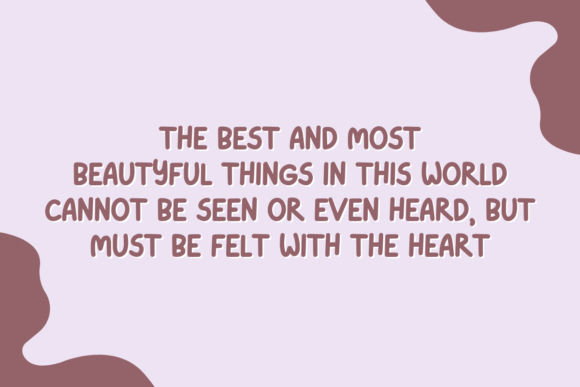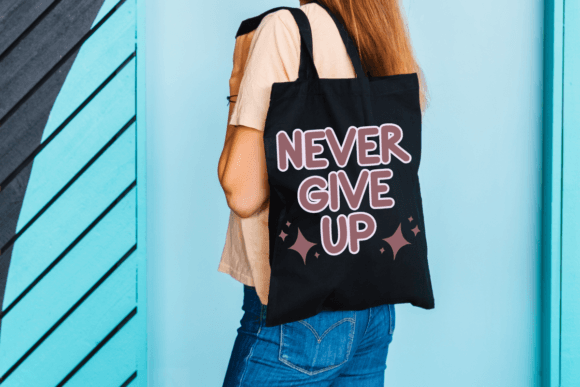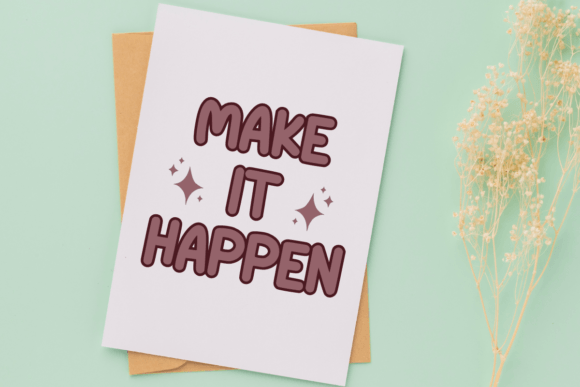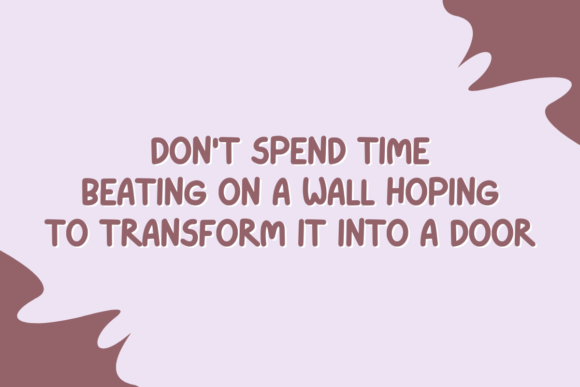
Introducing Hard Working Font: The Perfect Companion for Your Creative Projects
Are you a designer, crafter, or DIY enthusiast looking for a font that can help you add a personal touch to your projects? Look no further than Hard Working Font, a cute sans serif font that’s perfect for a wide range of creative applications. In this article, we’ll take a closer look at the features and benefits of Hard Working Font, and explore how it can help you take your creative projects to the next level.
What is Hard Working Font?
Hard Working Font is a modern sans serif font that’s designed to be both clean and adorable. Its simple, yet charming design makes it an excellent choice for a variety of projects, from stickers and notes to planners, SVG quotes, and more. The font’s versatility and legibility make it easy to read and understand, making it perfect for both digital and print applications.
Key Features of Hard Working Font
- Cute and Modern Design: Hard Working Font boasts a fresh and adorable design that’s sure to capture the attention of your audience.
- Sans Serif Style: The font’s sans serif style gives it a clean and minimalist look that’s perfect for modern designs.
- Highly Legible: The font is designed to be easy to read, making it perfect for body text, headings, and titles.
- Versatile: Hard Working Font can be used for a wide range of projects, from digital designs to print materials.
Creative Projects You Can Make with Hard Working Font
Hard Working Font is an incredibly versatile font that can be used for a wide range of creative projects. Here are some ideas to get you started:
- Stickers: Add a personal touch to your stickers with Hard Working Font’s cute and modern design.
- Notes and Planners: Use the font to create adorable notes and planners that are both functional and visually appealing.
- SVG Quotes: Create stunning SVG quotes with Hard Working Font that can be used for a variety of projects, from wall art to social media graphics.
- T-Shirts and Apparel: Use the font to create custom t-shirts, hoodies, and other apparel that make for great gifts or personal items.
- Wall Art: Create beautiful wall art with Hard Working Font that can add a personal touch to any room.
- Cricut and Craft Projects: Use the font for Cricut and craft projects, such as paper crafting, vinyl cutting, and more.
- Embroidery: Use Hard Working Font for embroidery projects, such as custom patches, logos, and designs.
- Posters and Cards: Create stunning posters and cards with Hard Working Font that are perfect for special occasions or everyday use.
Why Choose Hard Working Font?
With so many fonts available, why choose Hard Working Font? Here are just a few reasons:
- Unique Design: Hard Working Font boasts a unique and adorable design that’s sure to stand out from the crowd.
- Ease of Use: The font is incredibly easy to use, even for those with limited design experience.
- High-Quality: Hard Working Font is a high-quality font that’s designed to deliver exceptional results.
Hard Working Font is an excellent choice for designers, crafters, and DIY enthusiasts looking for a cute and modern sans serif font. With its versatile design, high legibility, and ease of use, it’s perfect for a wide range of creative projects. Whether you’re creating stickers, notes, planners, or wall art, Hard Working Font is sure to help you take your projects to the next level. So why wait? Download Hard Working Font today and start creating stunning designs that showcase your creativity and style!